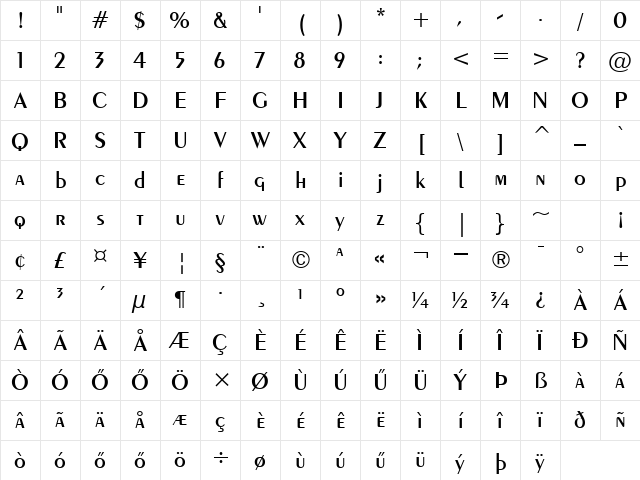
Complete H_Exotic 350 DmBd BT Regular glyph index. Displaying only characters natively supported by H_Exotic 350 DmBd BT Regular font.
H_Exotic 350 DmBd BT is a composed and adaptable typeface that performs quietly and consistently across a wide range of design contexts.